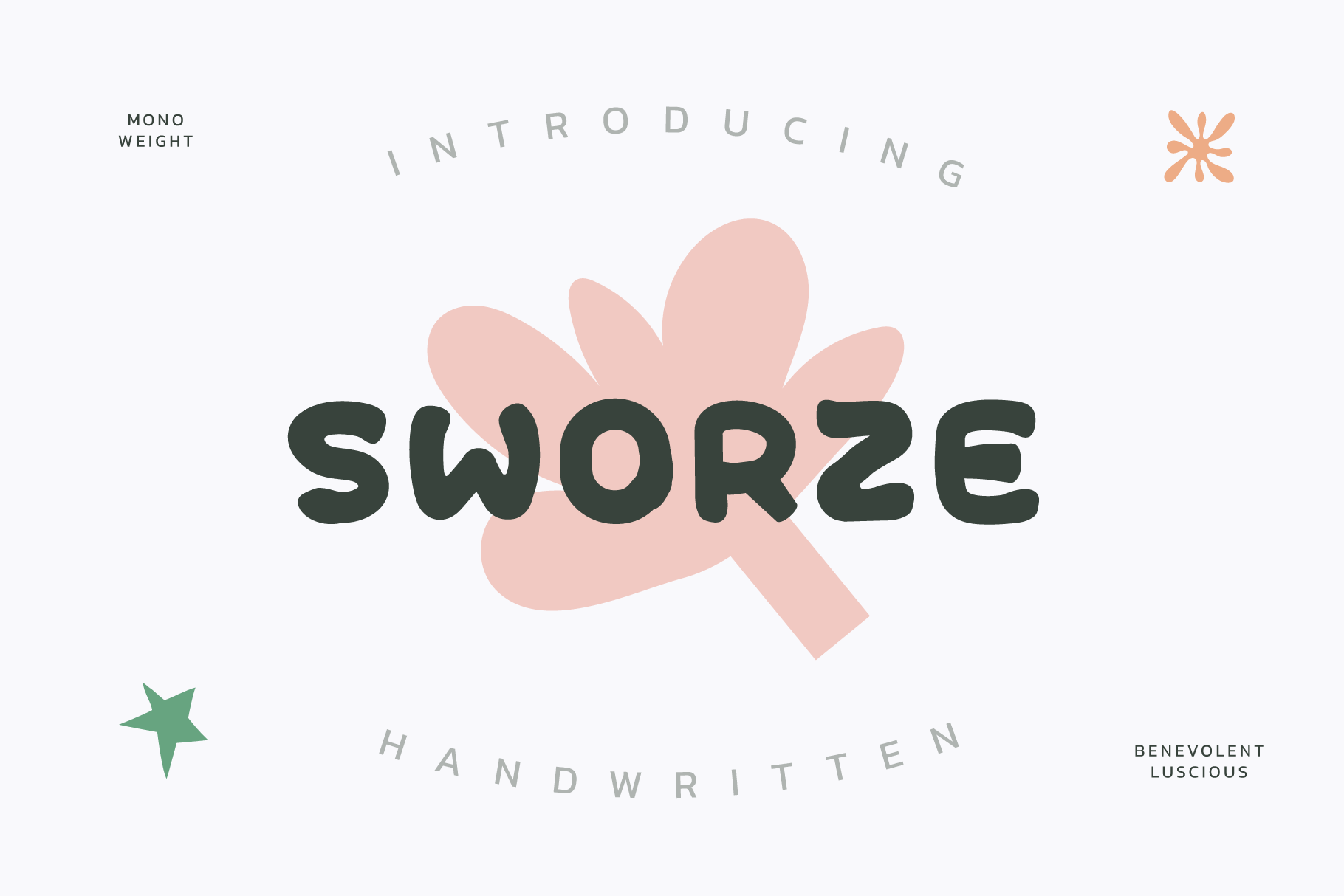
Sworze Font
Sworze is a benevolent luscious handwritten typeface apt for headline, editorial, branding, packaging, printed materials and typographic applications. 220+ glyphs including punctuation and numerical.